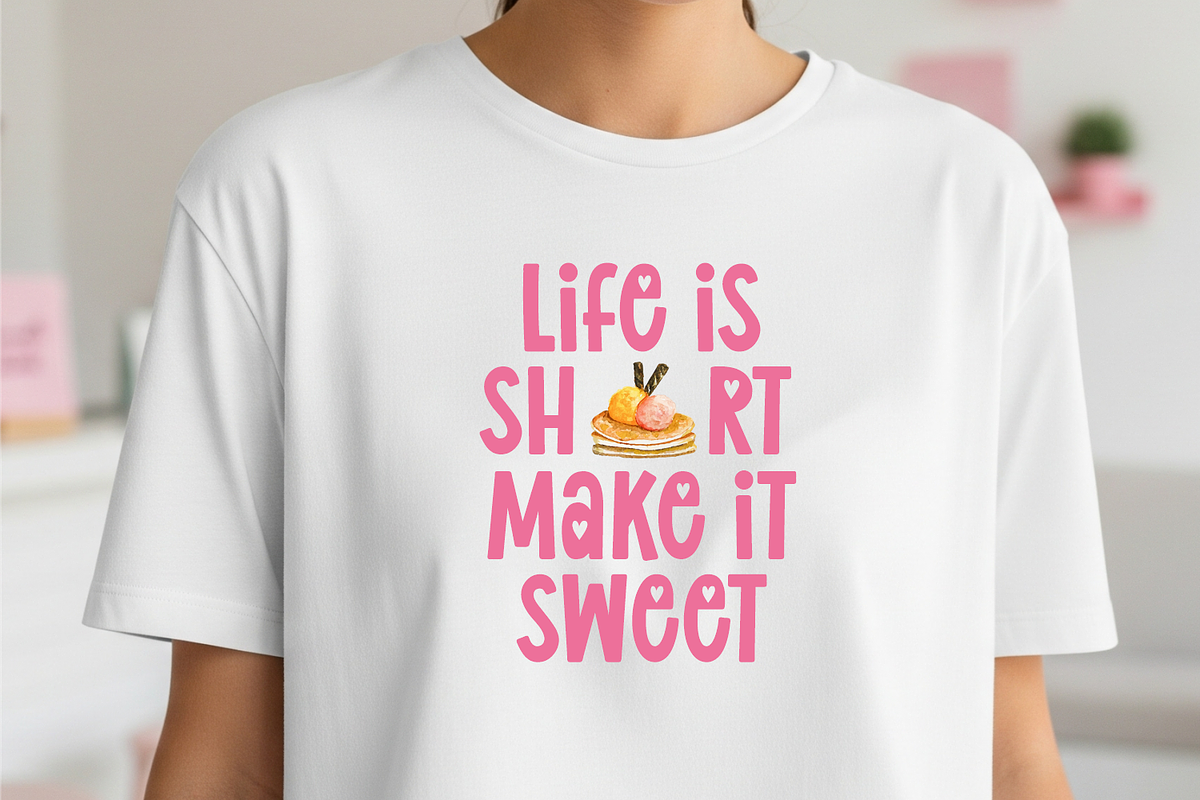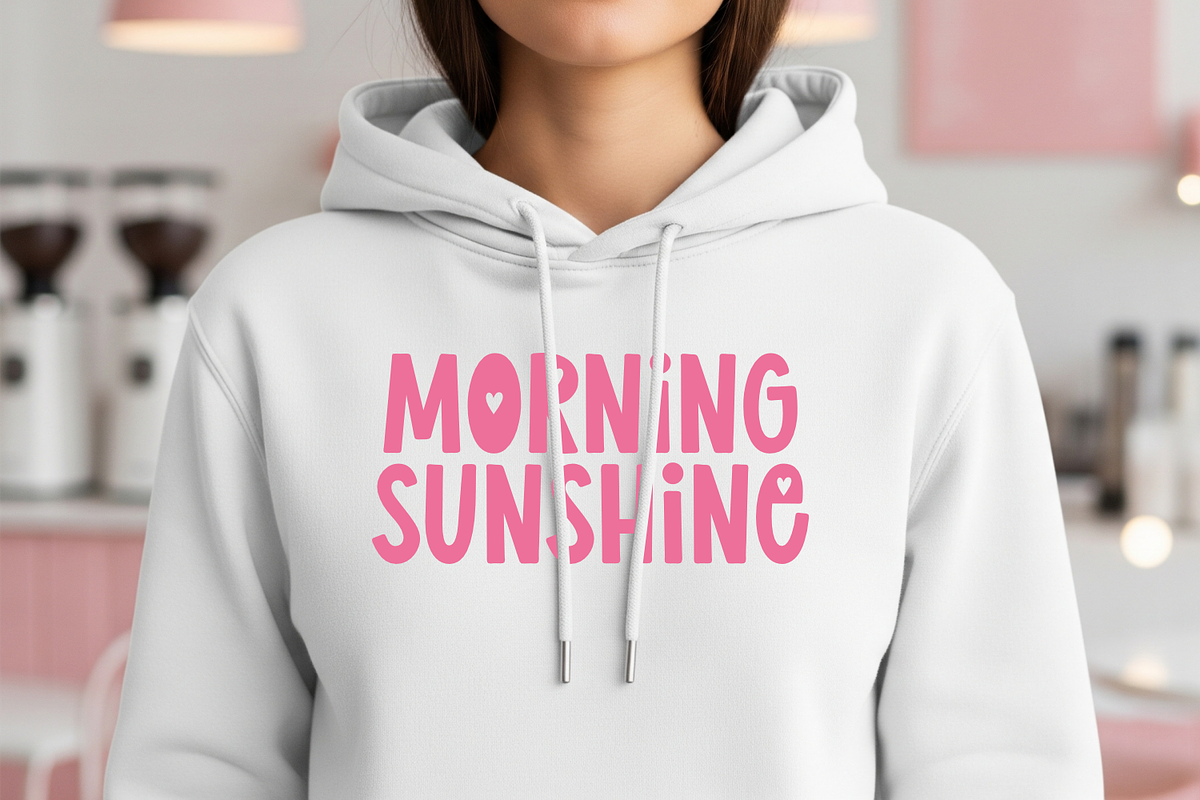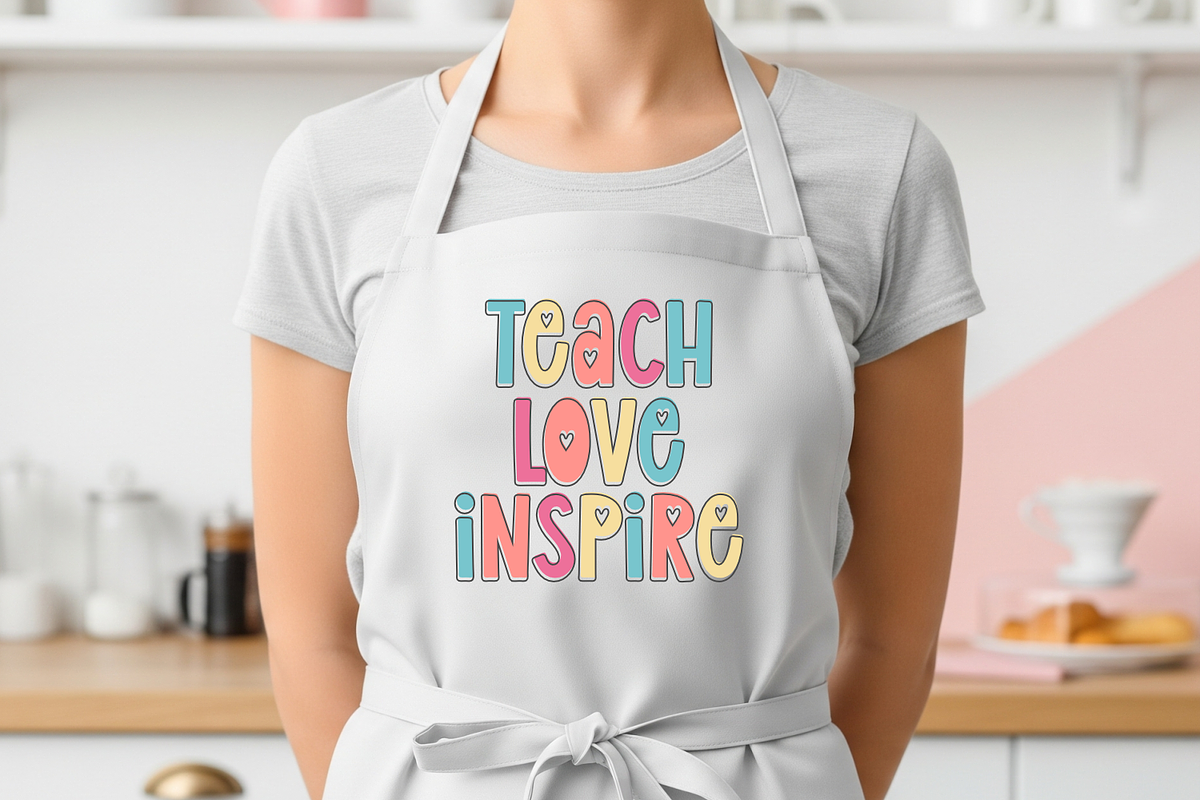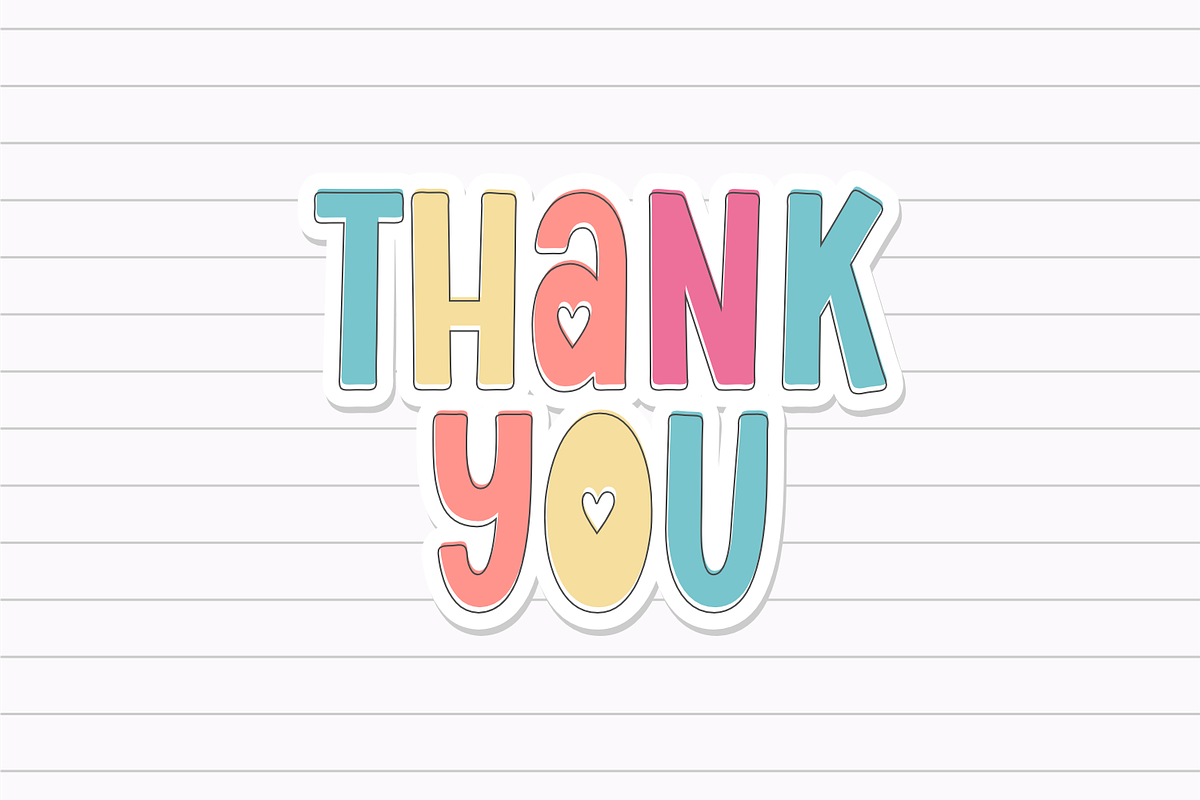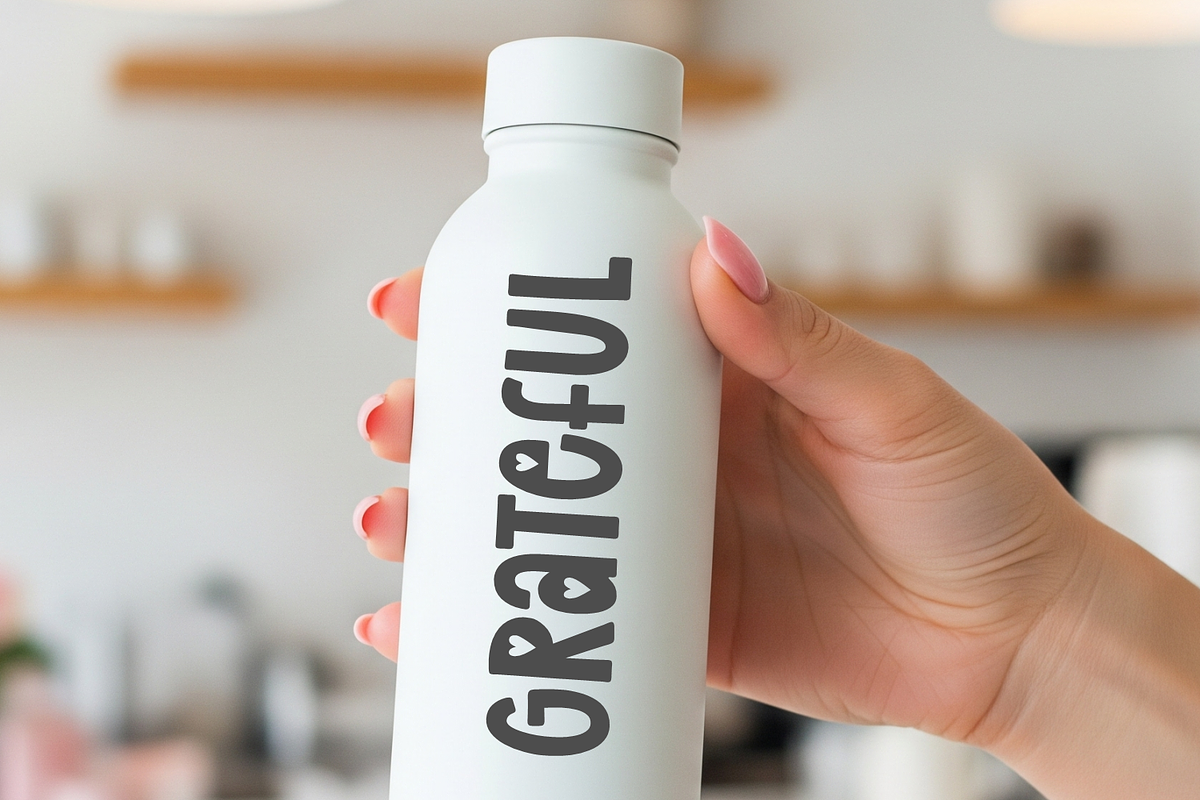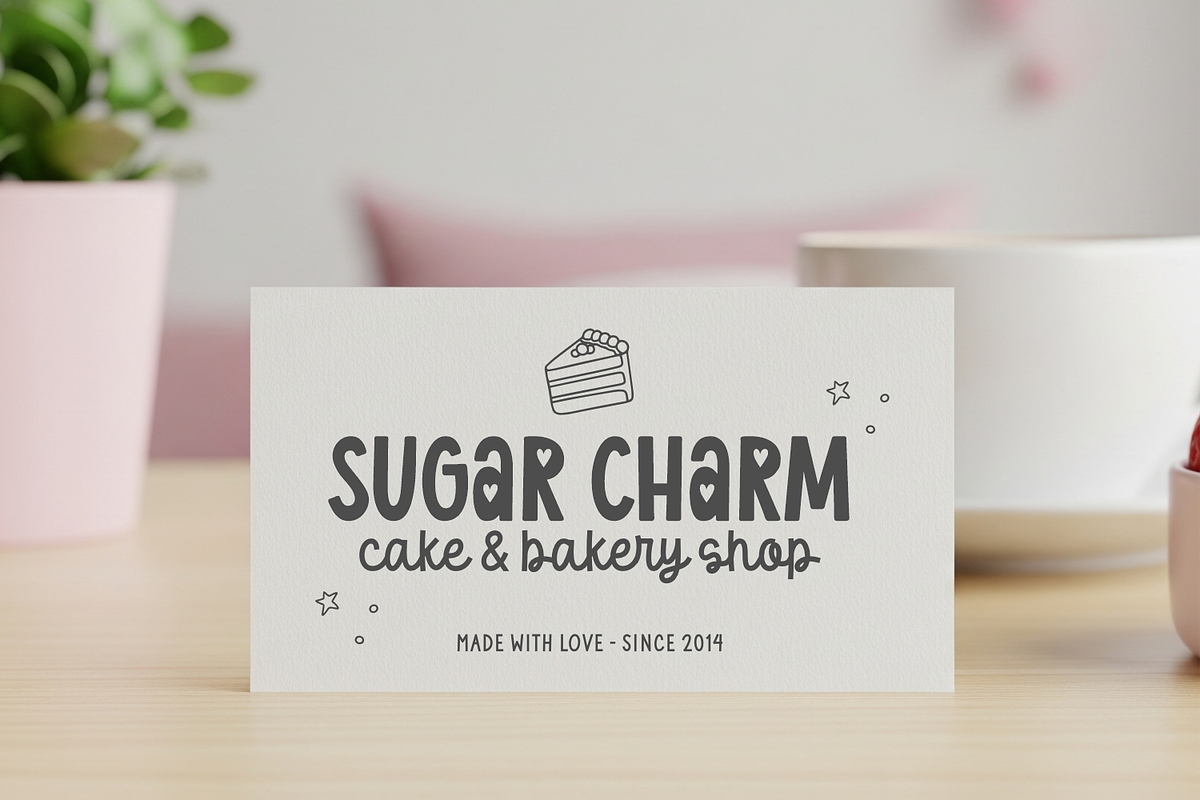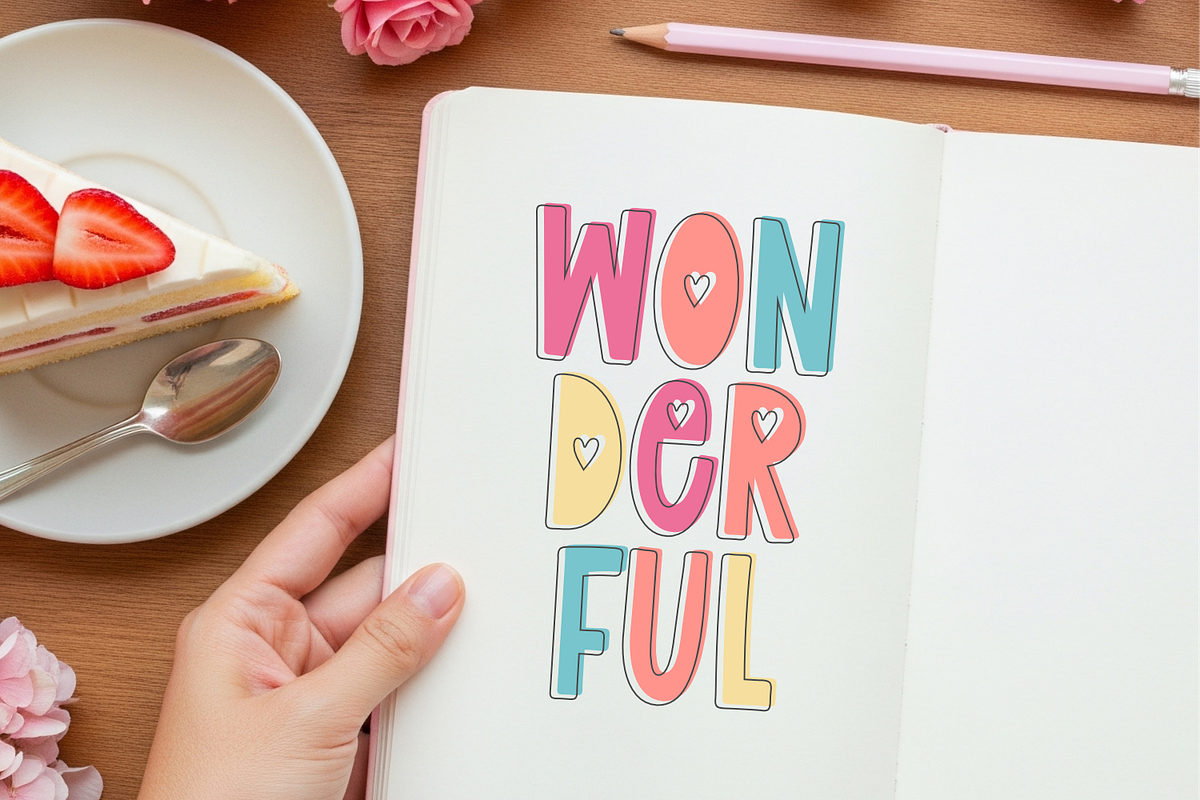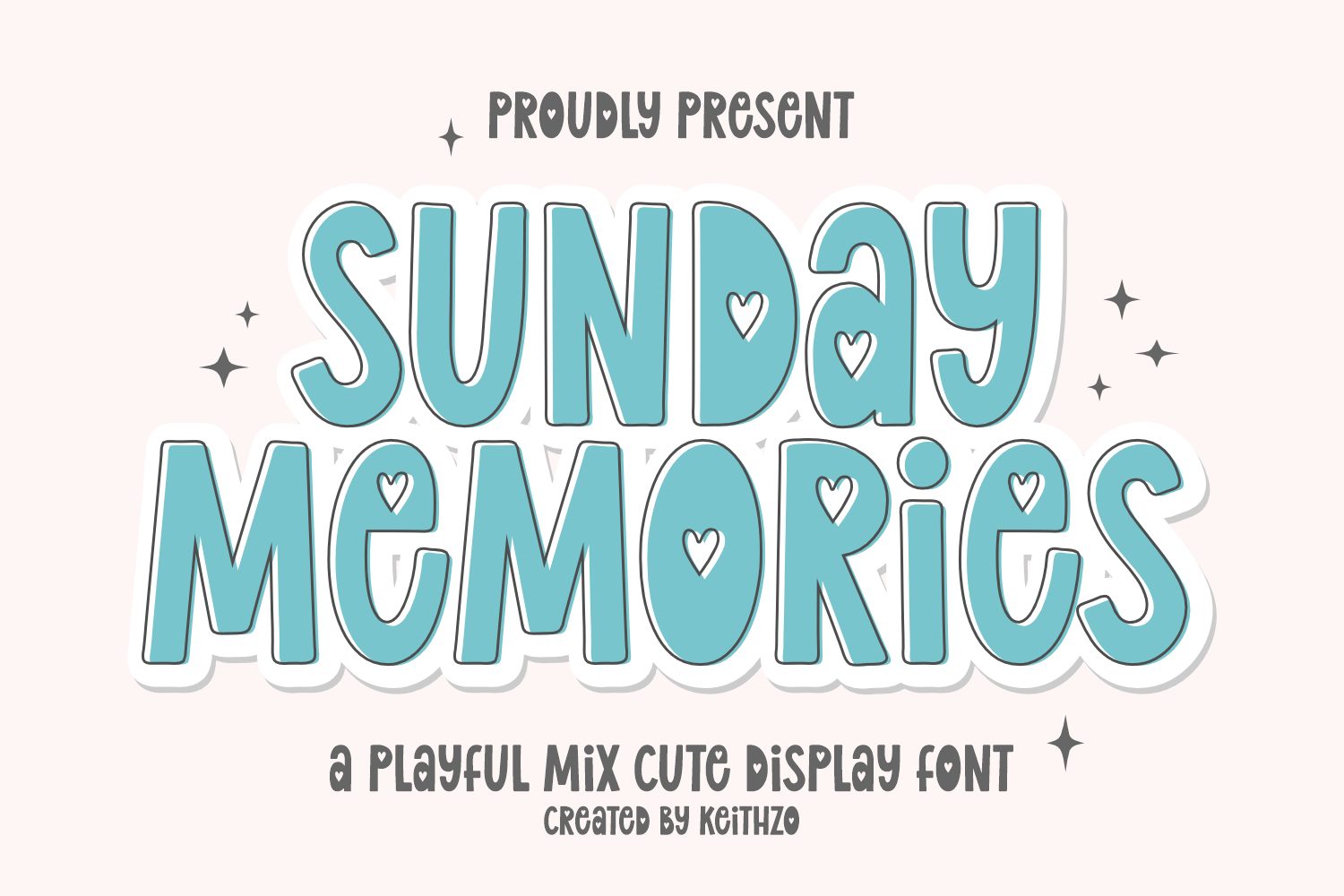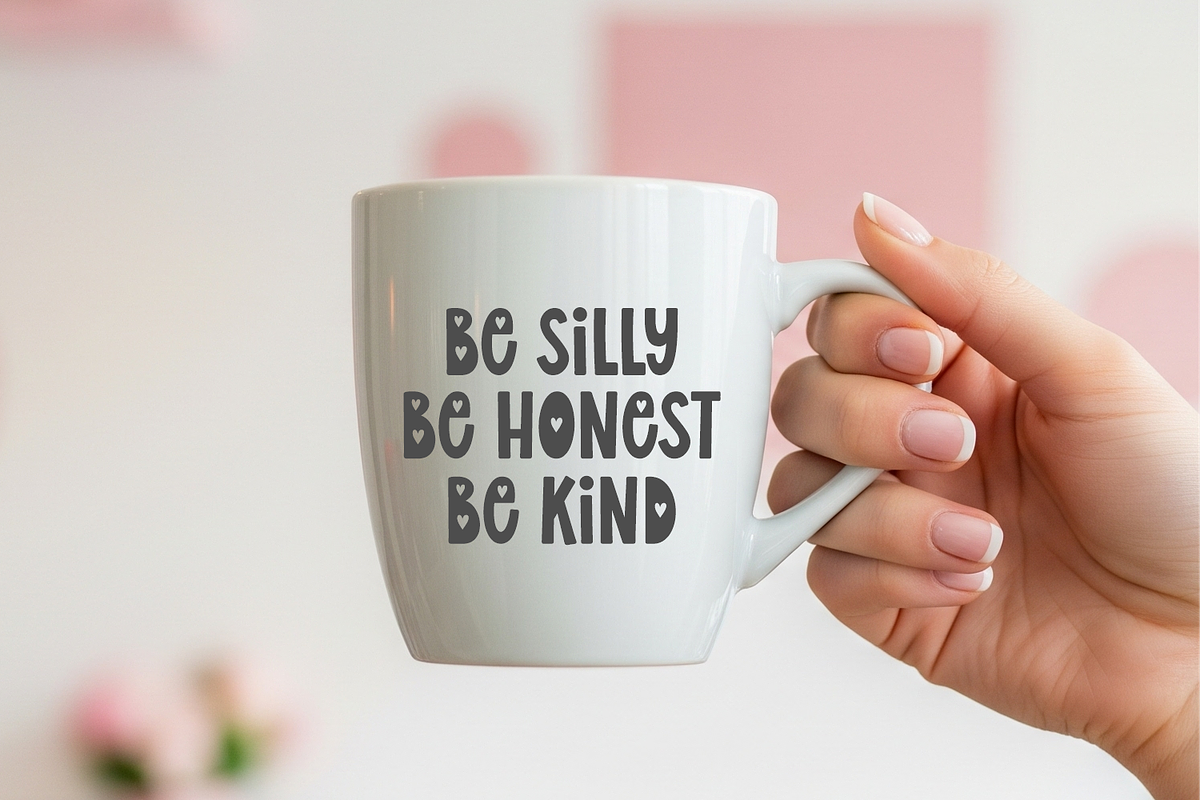
Sunday Memories - Cute Display Font
Experience the tangible touch of comfort and warmth with a font that carries the rhythm of your heart. Enter the realm of Sunday Memories, a typeface that steps beyond being solely a collection of letters, but rather the digital embodiment of a comforting embrace, crafted carefully to echo the serene, light-kissed essence of tranquil Sunday mornings. This lively display font is a magic wand for creatives, threading their work with echoes of joyfulness, friendliness, and a distinct dash of sugar sweetness.
Instantly breathe new life into ordinary text with Sunday Memories, transforming it into a profound declaration of affection. The font boasts a distinct “playful mix” personality, artistically merging uppercase and lowercase forms to birth a seamless, harmonious cascade, akin to the rhythm of expensive, personalized hand-lettering. Sunday Memories is spotted with tender, buoyant borders and charming varying heights, stoking the fires of youthful curiosity and contemporary visual flair.
Yet, don’t let its playful nature deceive you. Sunday Memories, with its cheery disposition, also champions versatility and pronounces a strong presence. It is the bridge that merges whimsy with impact, crafting messages that stick. Sunday Memories – where digital meets the heart and the feel of a cozy weekend amidst the bustle of everyday life.